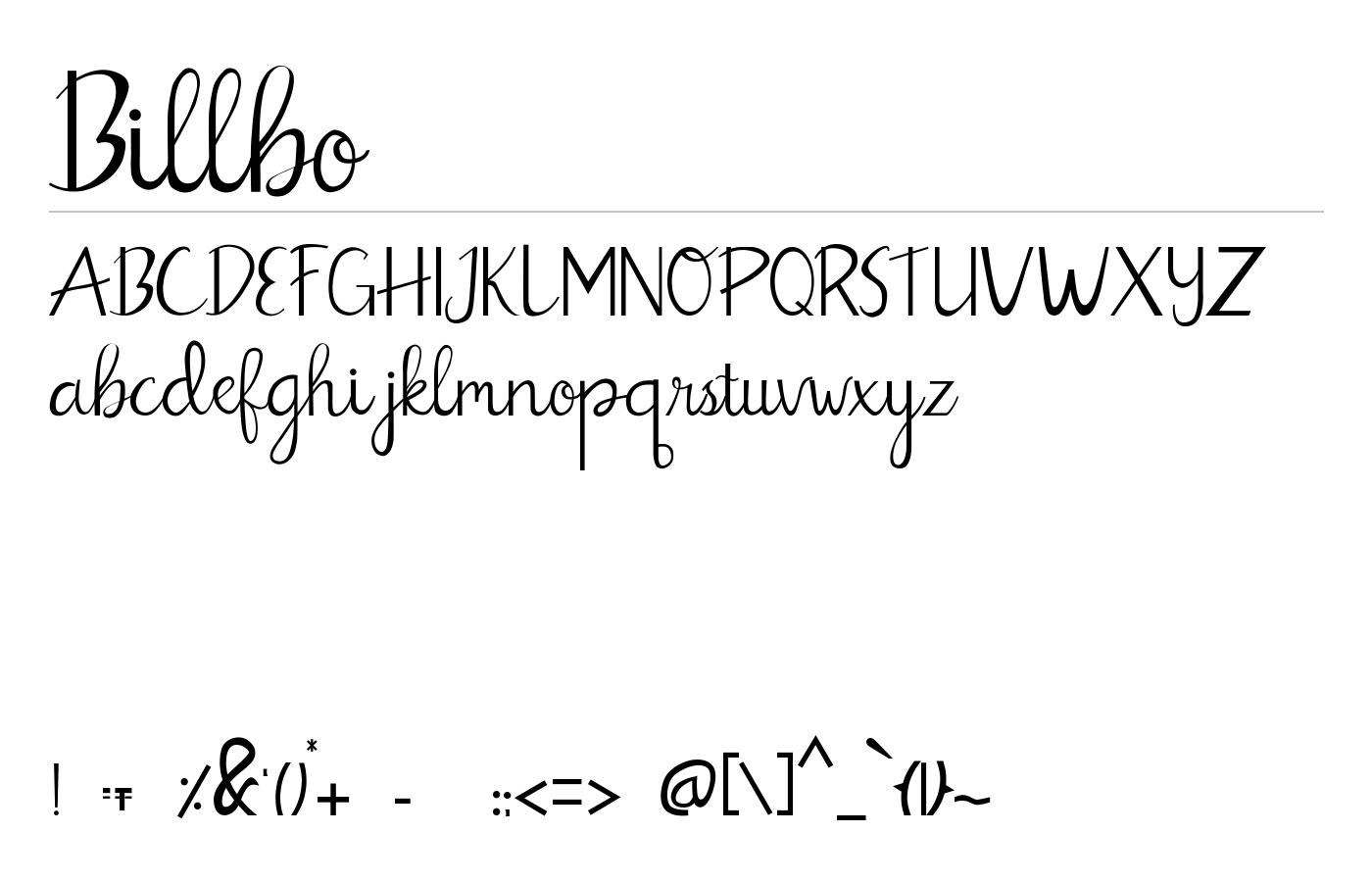
Billbo is a whimsical script-inspired sans serif font with a light, elegant feel and a playful personality. Its thin strokes, tall x-height, and unique, hand-drawn letter shapes make it ideal for creative branding, invitations, and headlines that need a charming, artistic touch. The font's airy spacing and quirky details give it a friendly vibe that works well for fashion, lifestyle, and boutique design projects.
Billbo Font
About Billbo Font
| Font family | Billbo Font |
| Designer | SaberStudio 2019 |